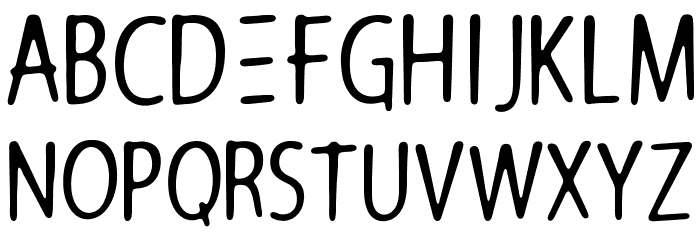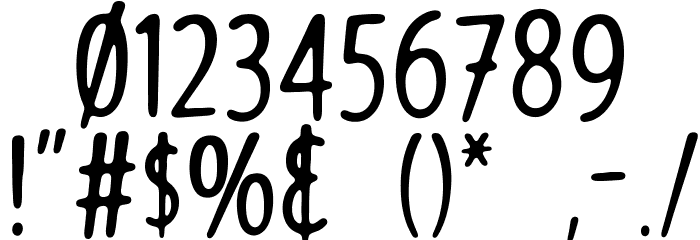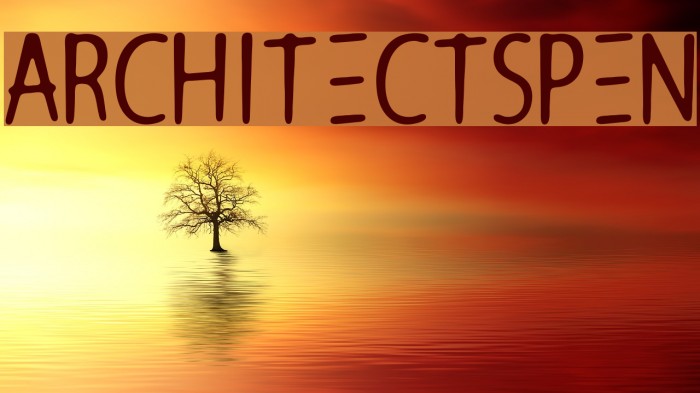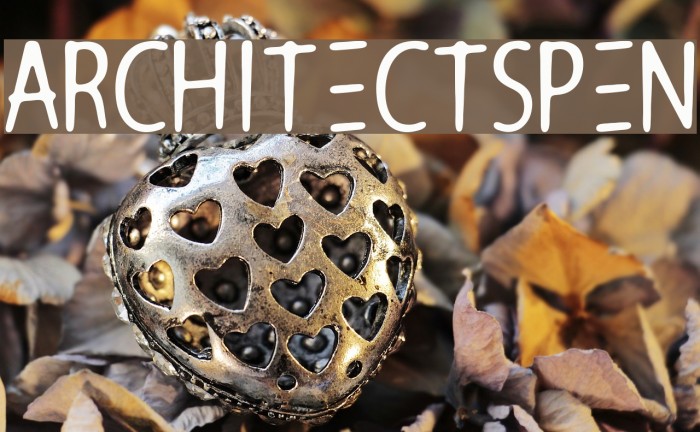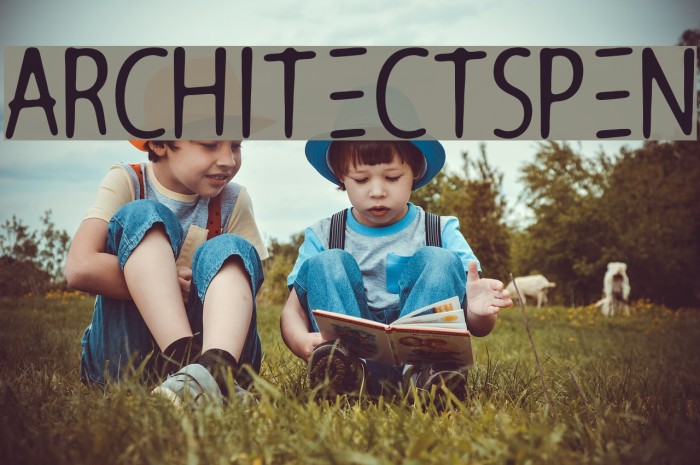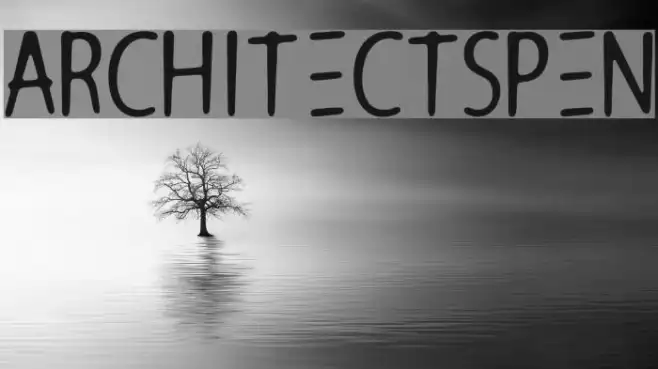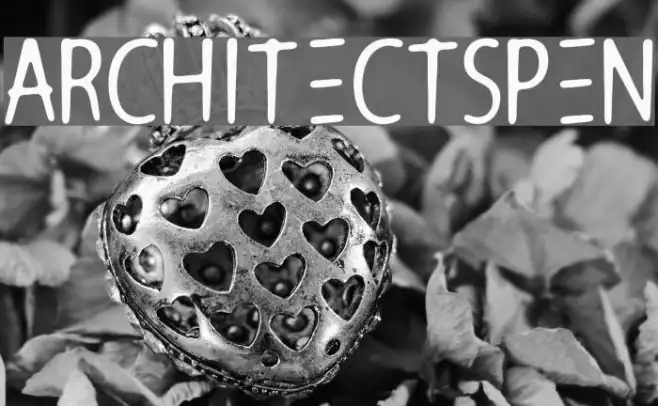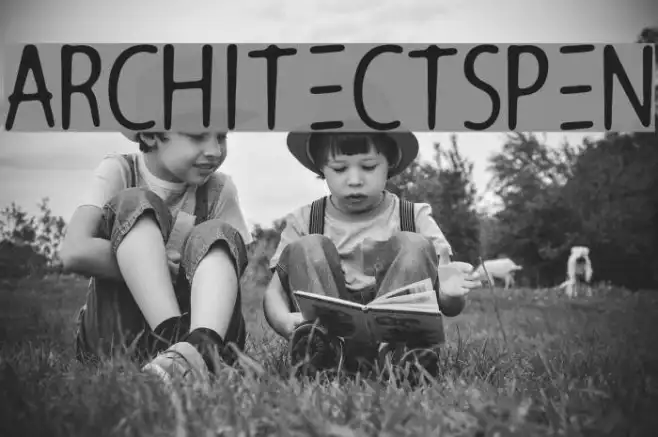
ArchitectsPen Font
This font features a handwritten style that mimics the precise, clean lines often associated with architectural sketches. The characters are slightly elongated with a consistent stroke width, giving it a uniform appearance. The uppercase and lowercase letters maintain a cohesive look, while the numerals and special characters complement the overall design. Its legibility and unique style make it suitable for creative projects that require a personal touch.
A handwritten font with clean, elongated lines reminiscent of architectural sketches.
- Proposed Projects: Ideal for architectural presentations, creative design projects, personal branding, and artistic invitations.
- Use Case: Logos, Headlines, Creative projects